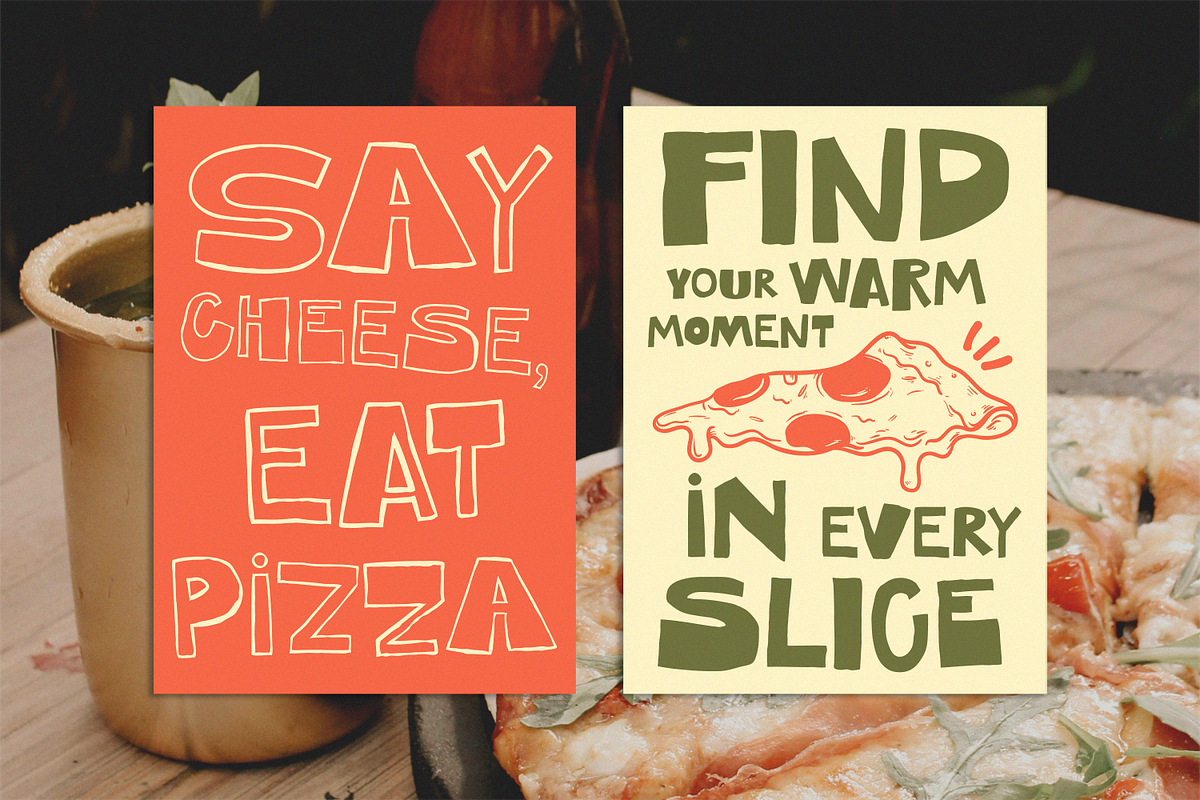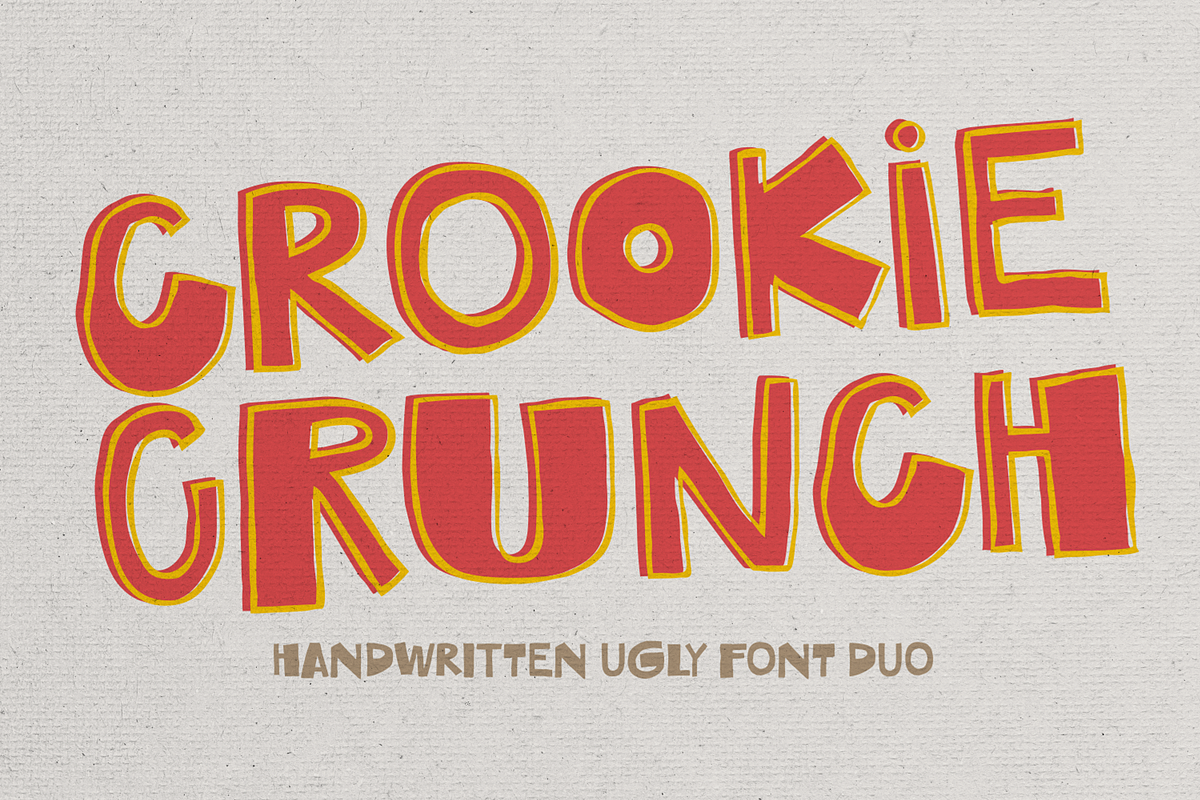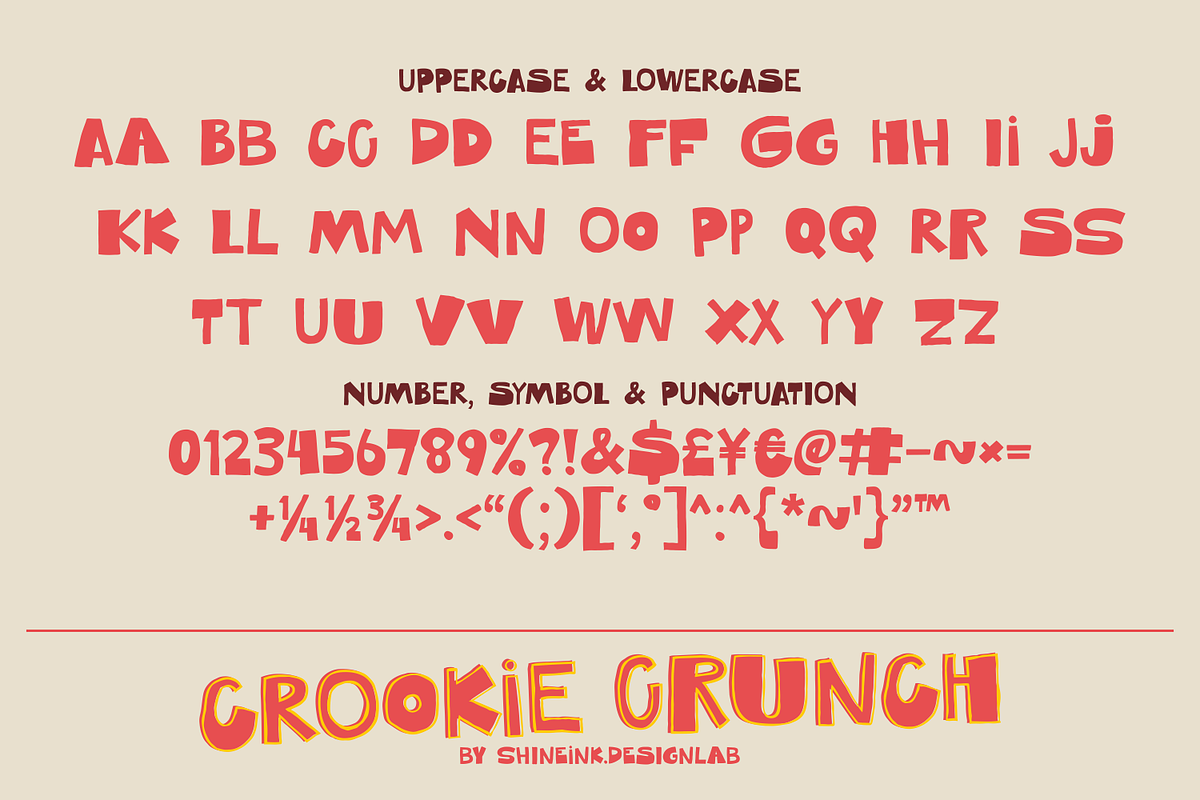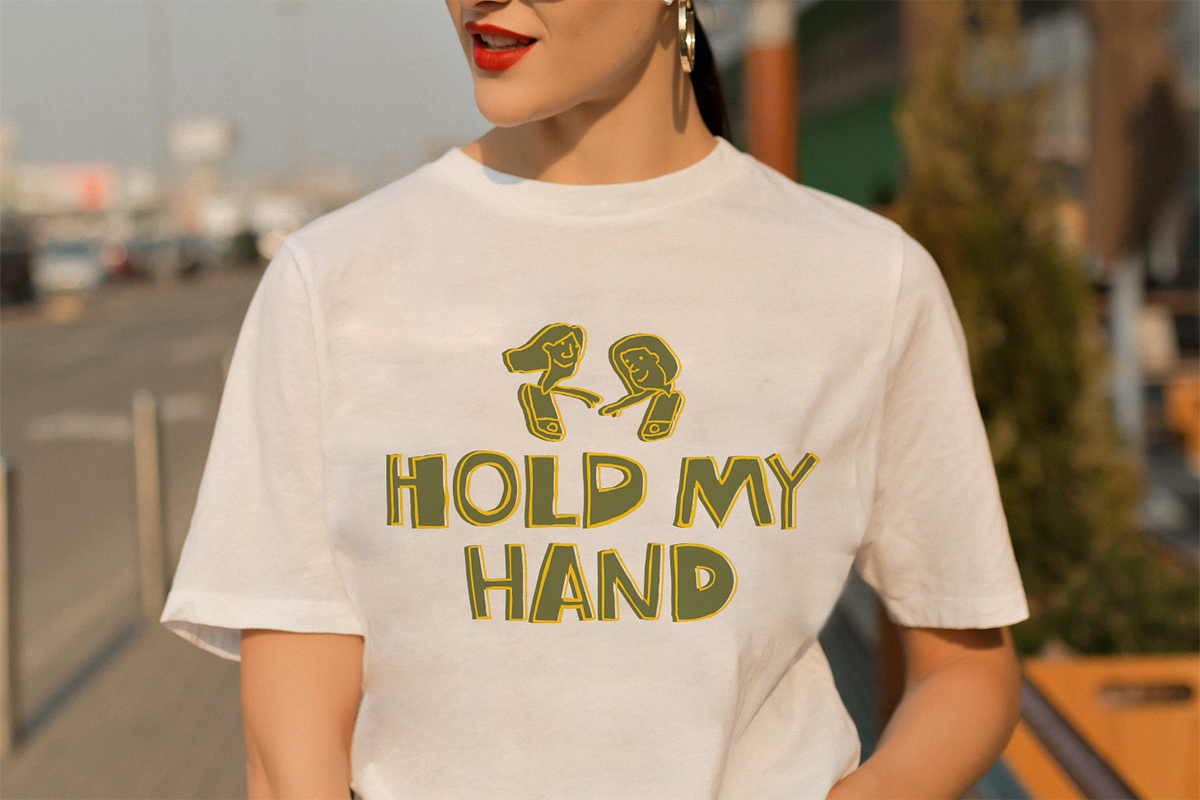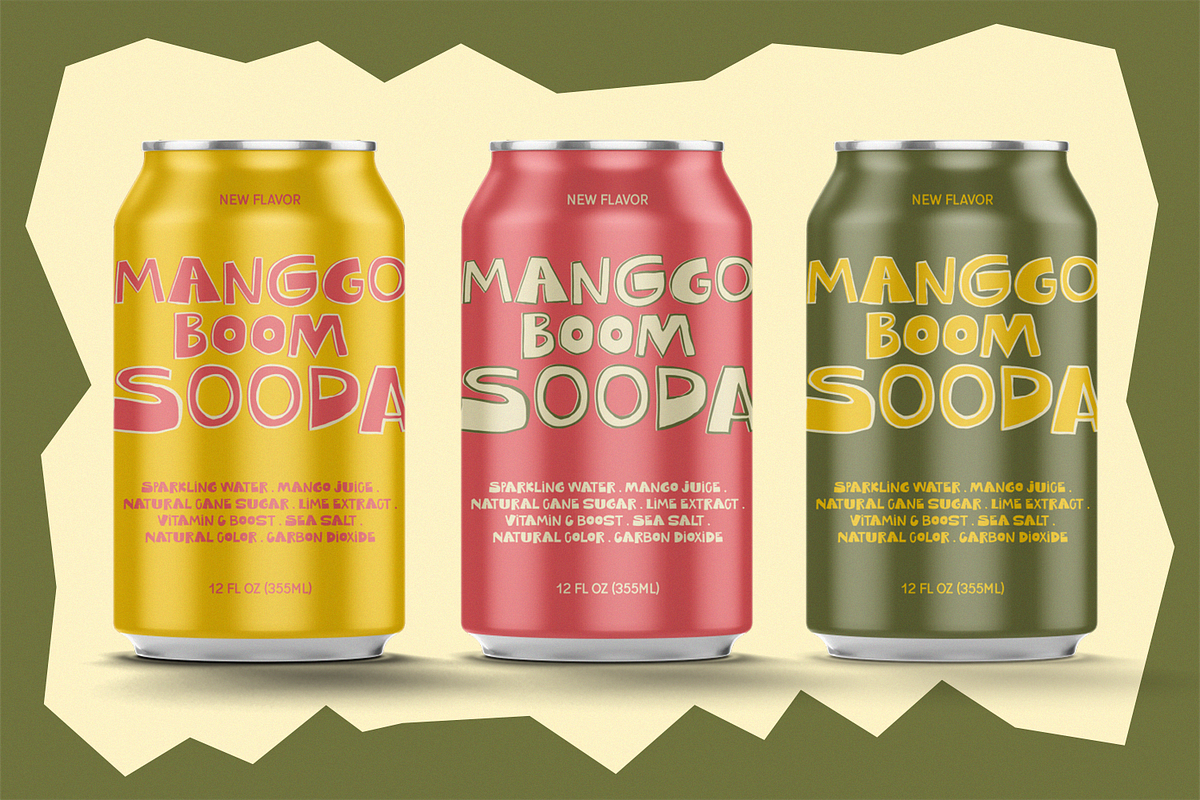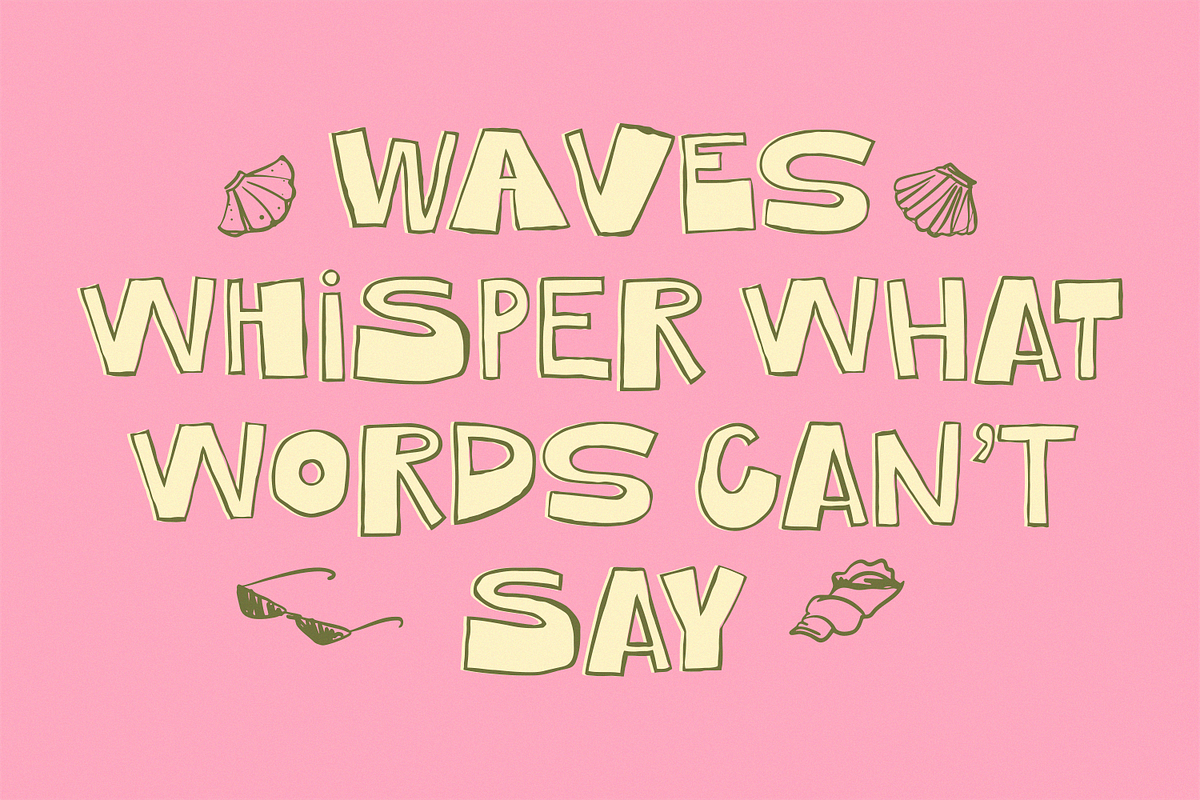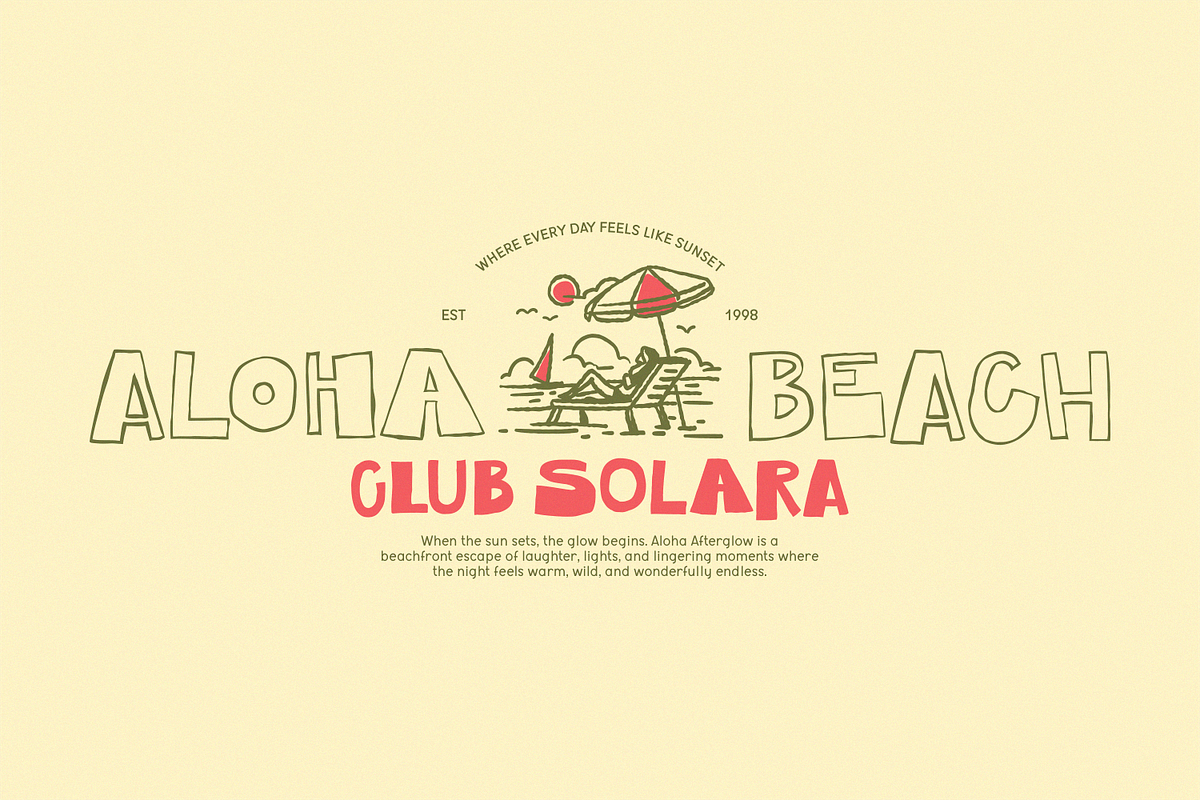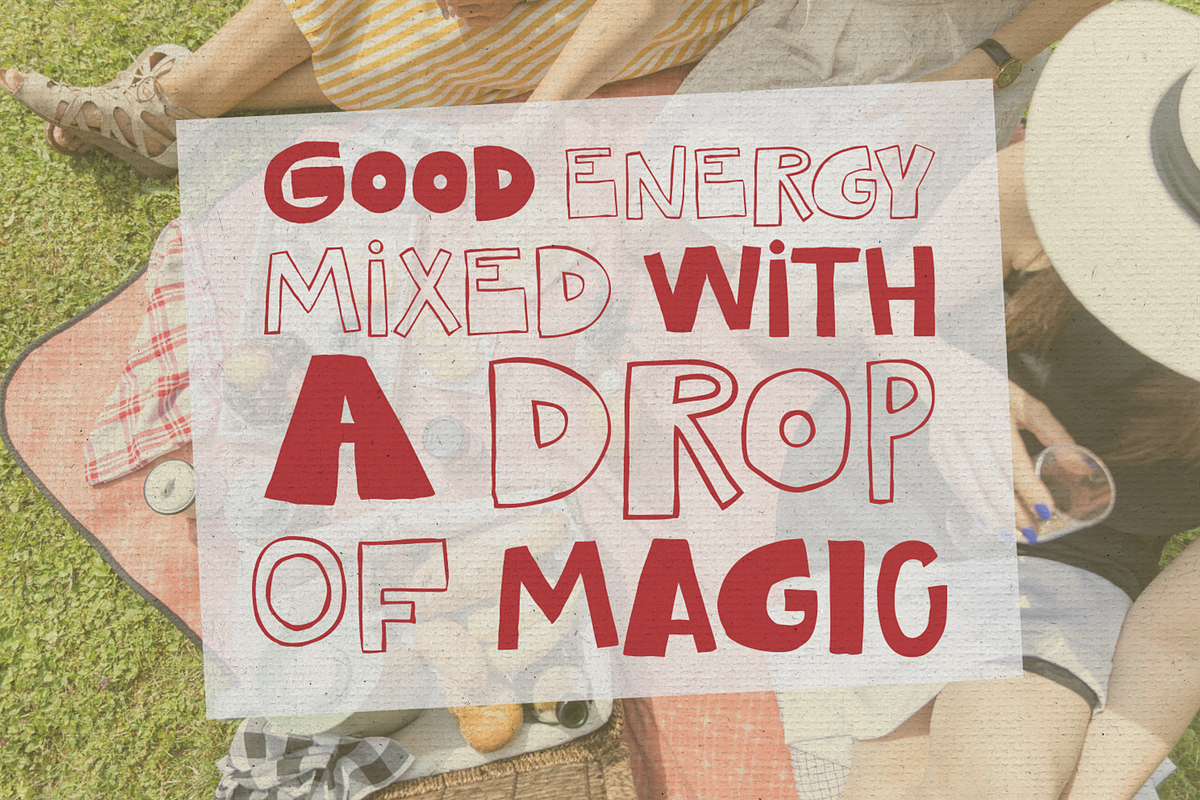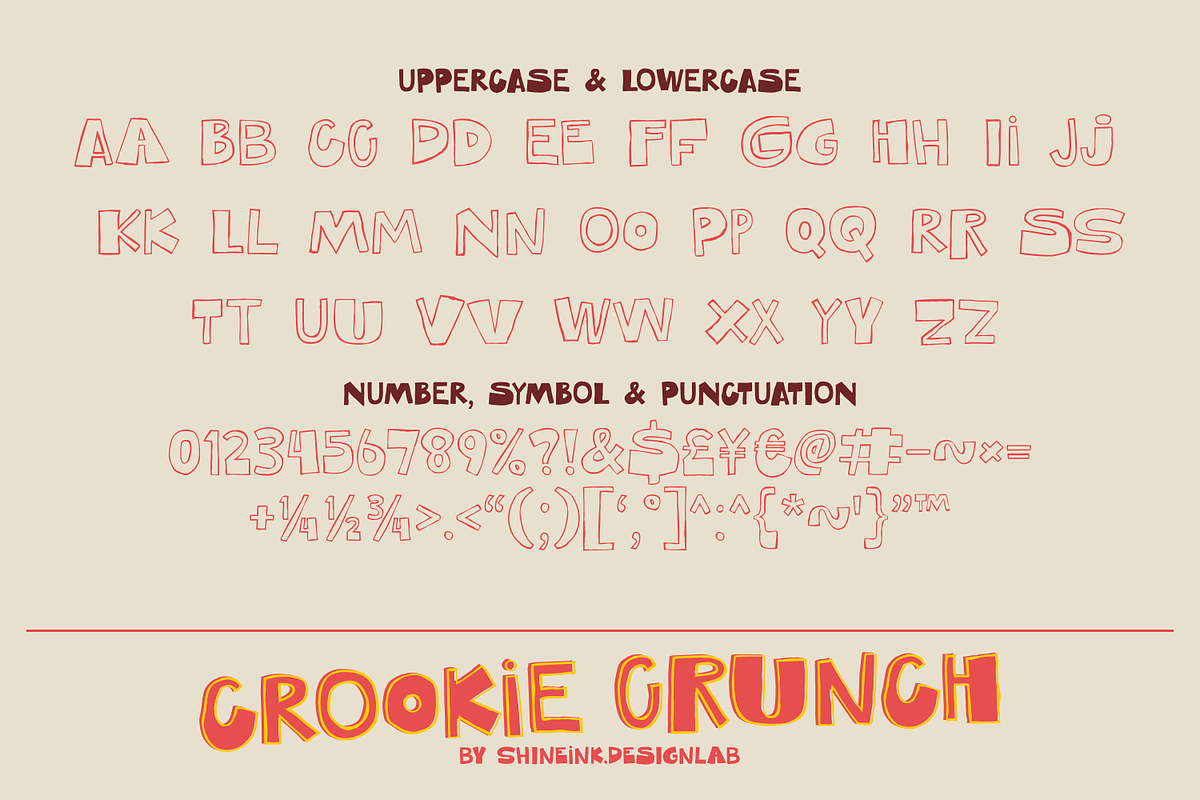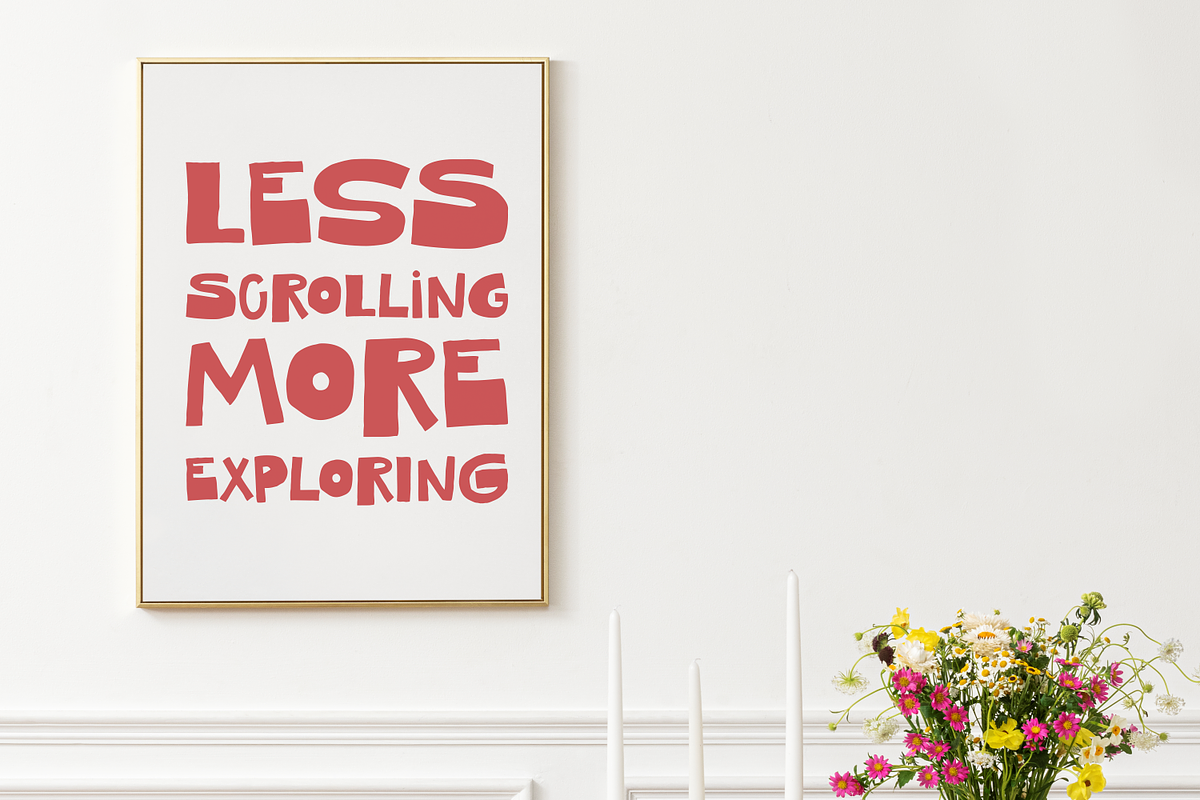
Crookie Crunch
I'm present to you, a bold and quirky handwritten ugly font duo, called Crookie Crunch!
Crookie Crunch is a bold and quirky Handwritten Ugly Font Duo that celebrates imperfect shapes, uneven strokes, and playful character. Designed in two fun styles—Regular and Inline—this duo gives your designs a loud, messy, and wonderfully expressive handmade look.
Both styles are packed with irregular curves and chunky outlines, making them perfect for designers who want to break the rules and create artwork that feels energetic, childlike, and creatively chaotic. Whether you're crafting packaging, branding, posters, comics, or playful social media graphics, Crookie Crunch brings instant personality to any project.
- Lowercase and Uppercase
- 2 Style Font